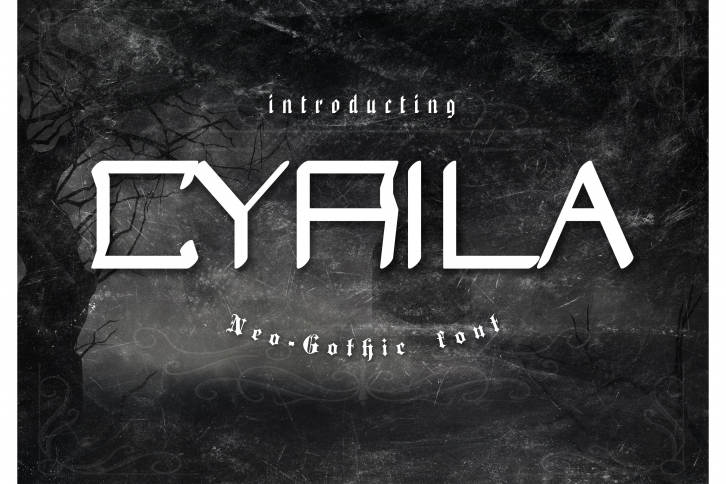
Cyrila Neo-Gothic is a beautiful font that was designed by Eldamar Studio. It's a great choice for designers and creatives who need such a font. It was released on February 7, 2020 and the file size is 1.10 MB. Cyrila Neo-Gothic may give a more youthful, expressive and casual look to your project. It is a very beautiful, refined, elegant, and high-quality font.